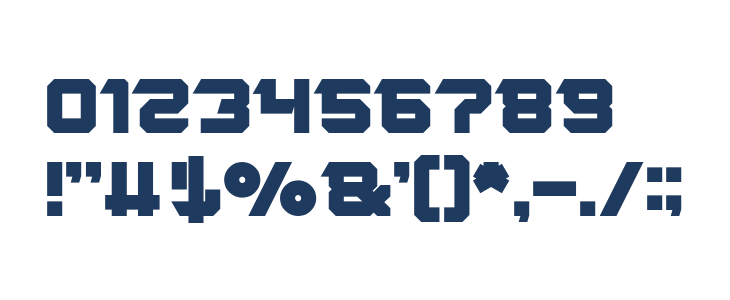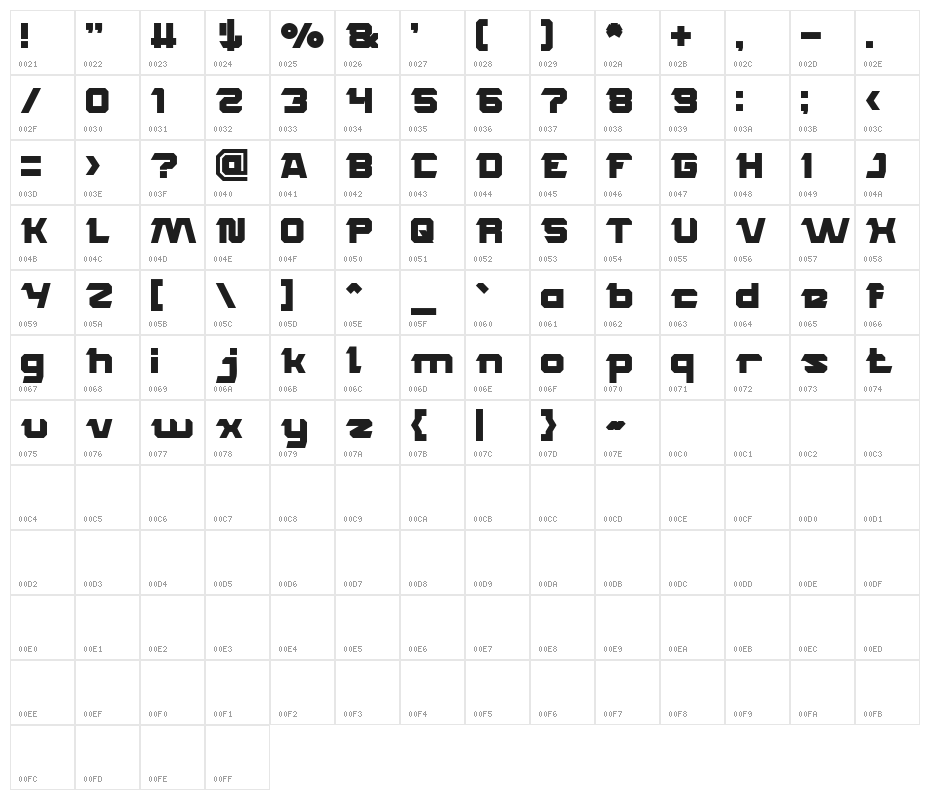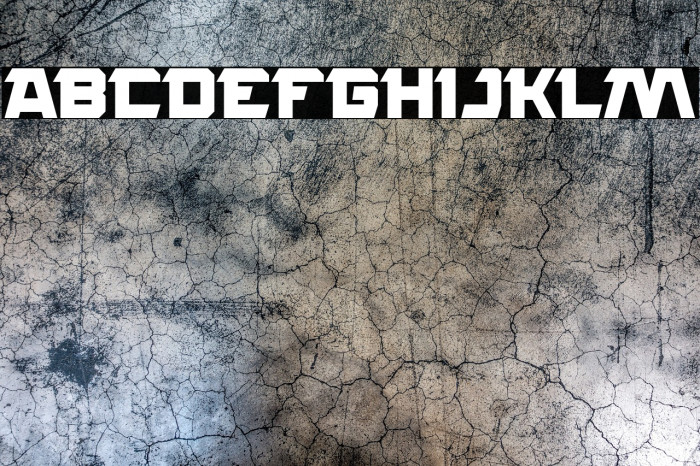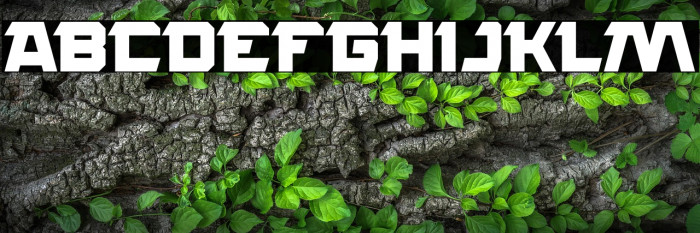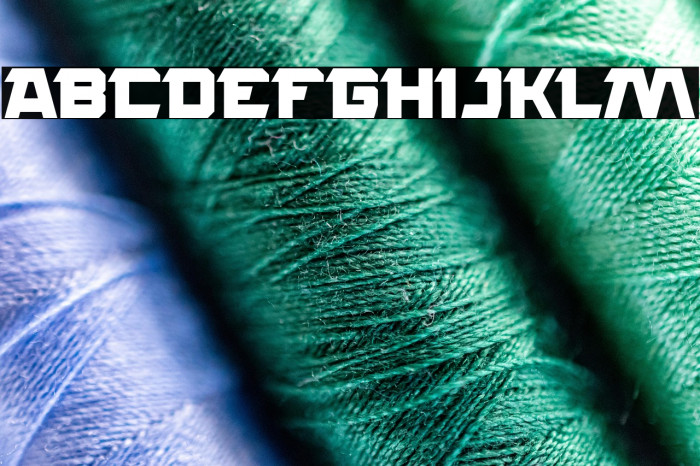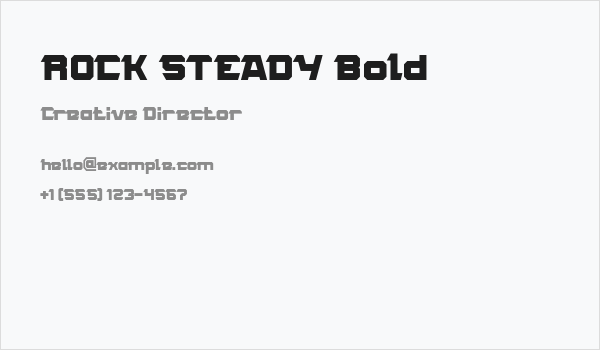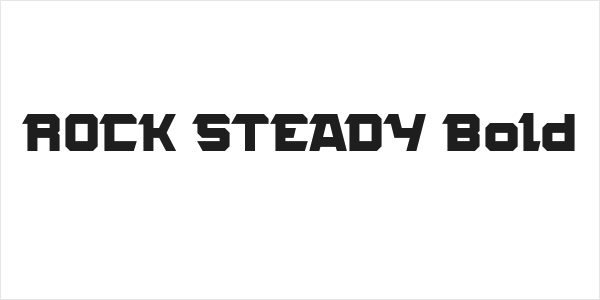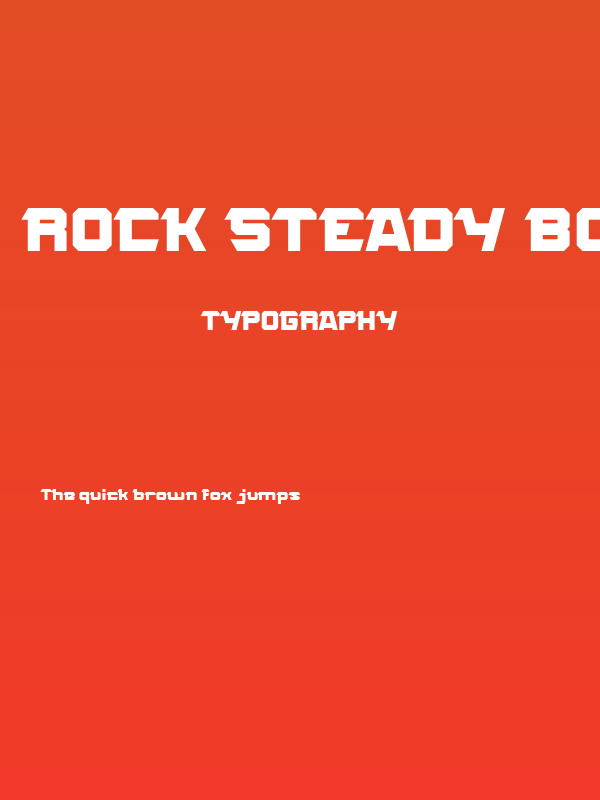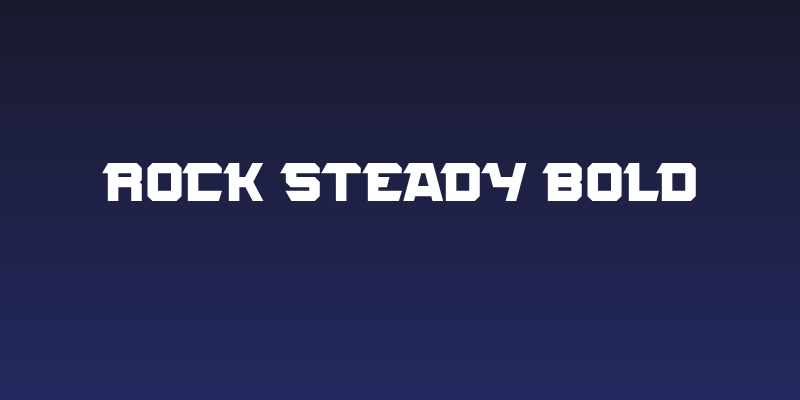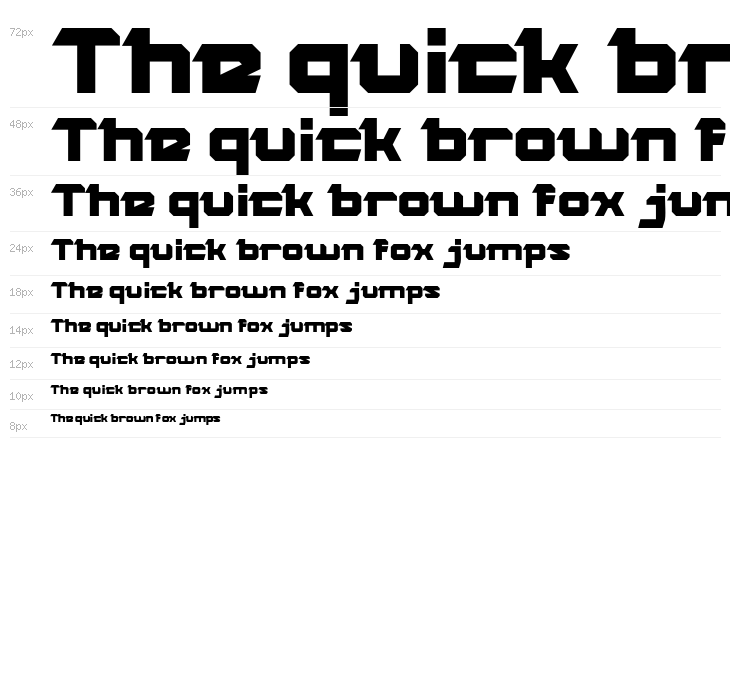
ROCK STEADY Bold Font
ROCK STEADY Bold Description
This font features a bold and angular design, characterized by its geometric and blocky appearance. The uppercase and lowercase letters maintain a consistent width, creating a uniform and cohesive look. The sharp edges and straight lines give it a modern and industrial feel, making it stand out with a strong presence. The numerals and special characters follow the same design principles, ensuring a seamless integration across all text elements. Its boldness and unique style make it suitable for attention-grabbing headlines and impactful designs.